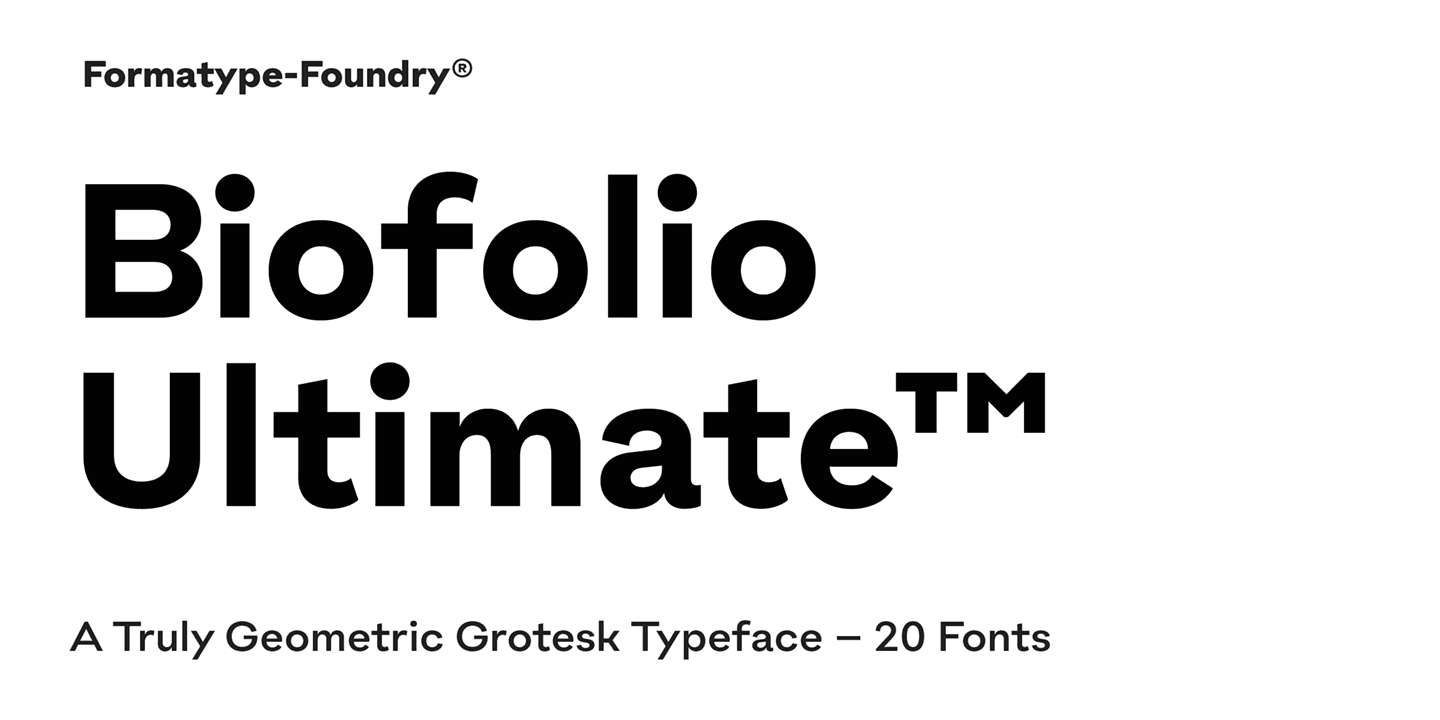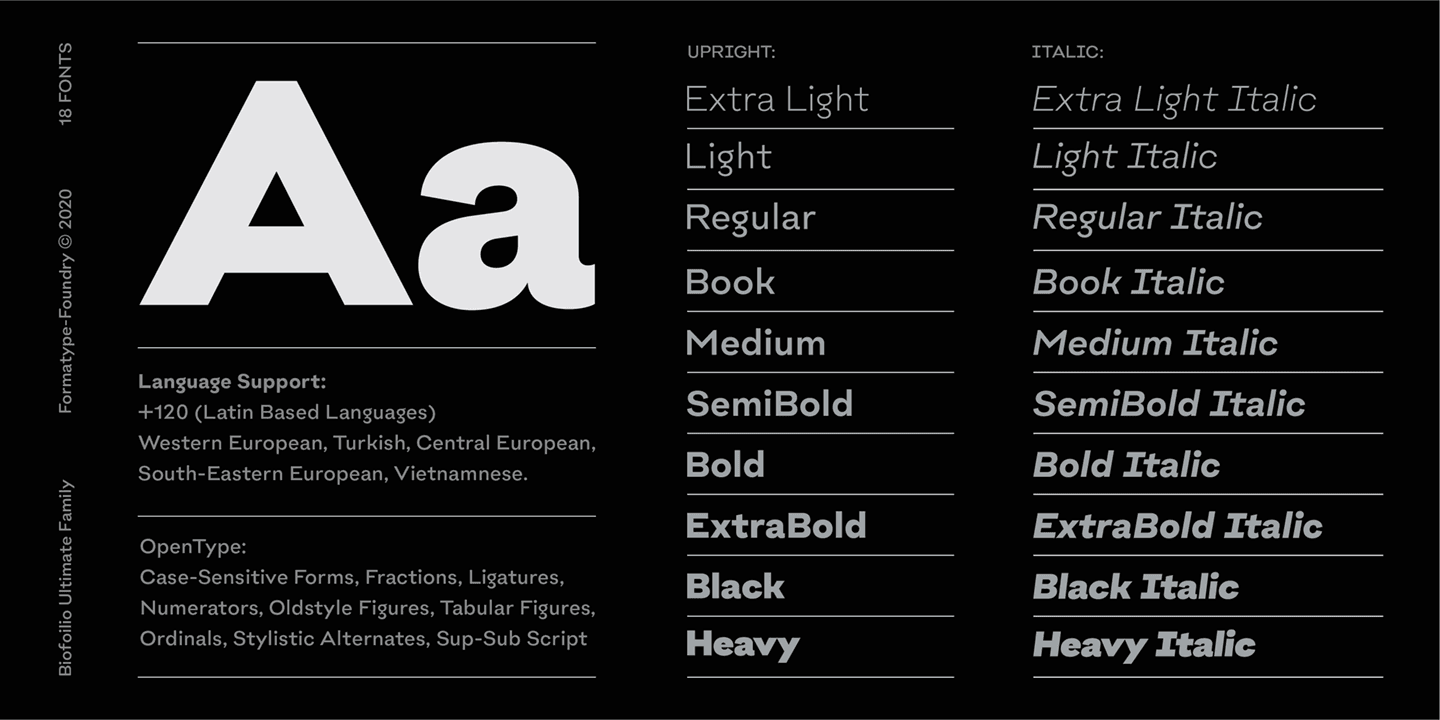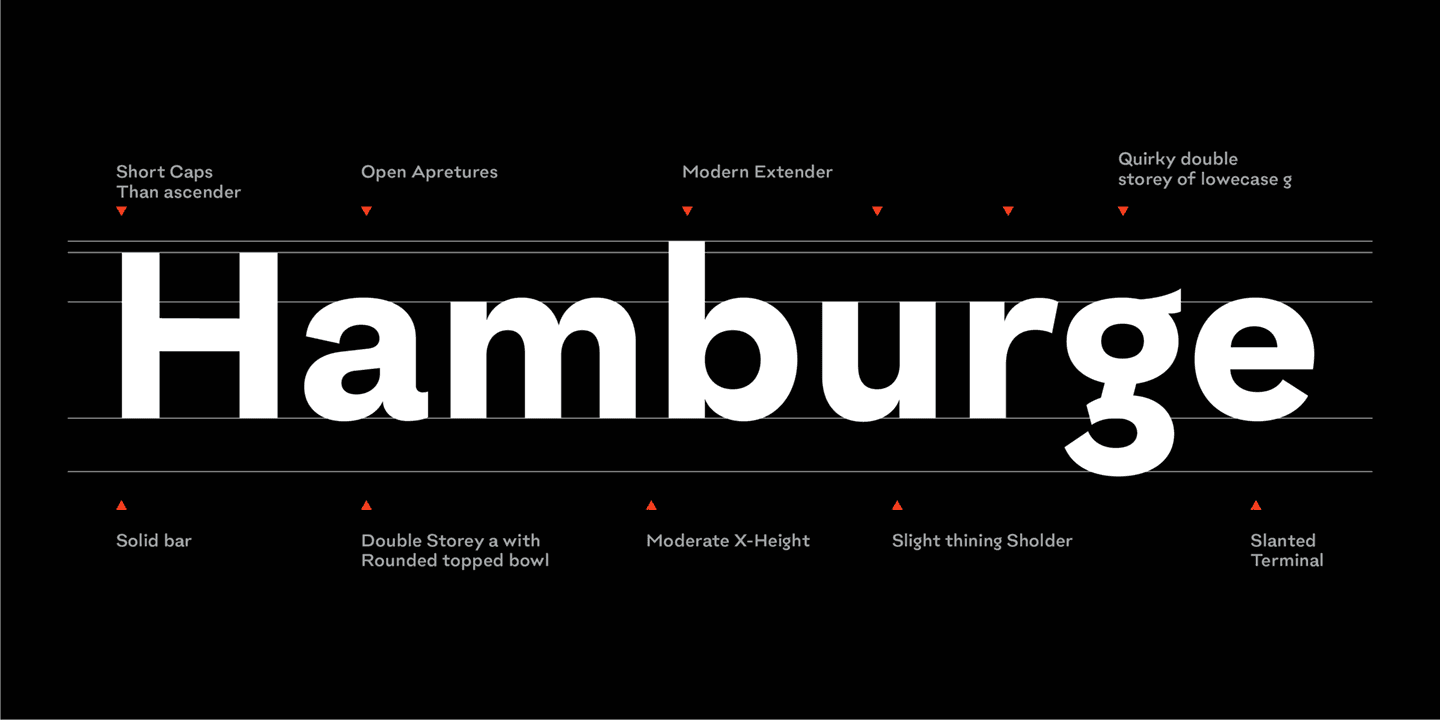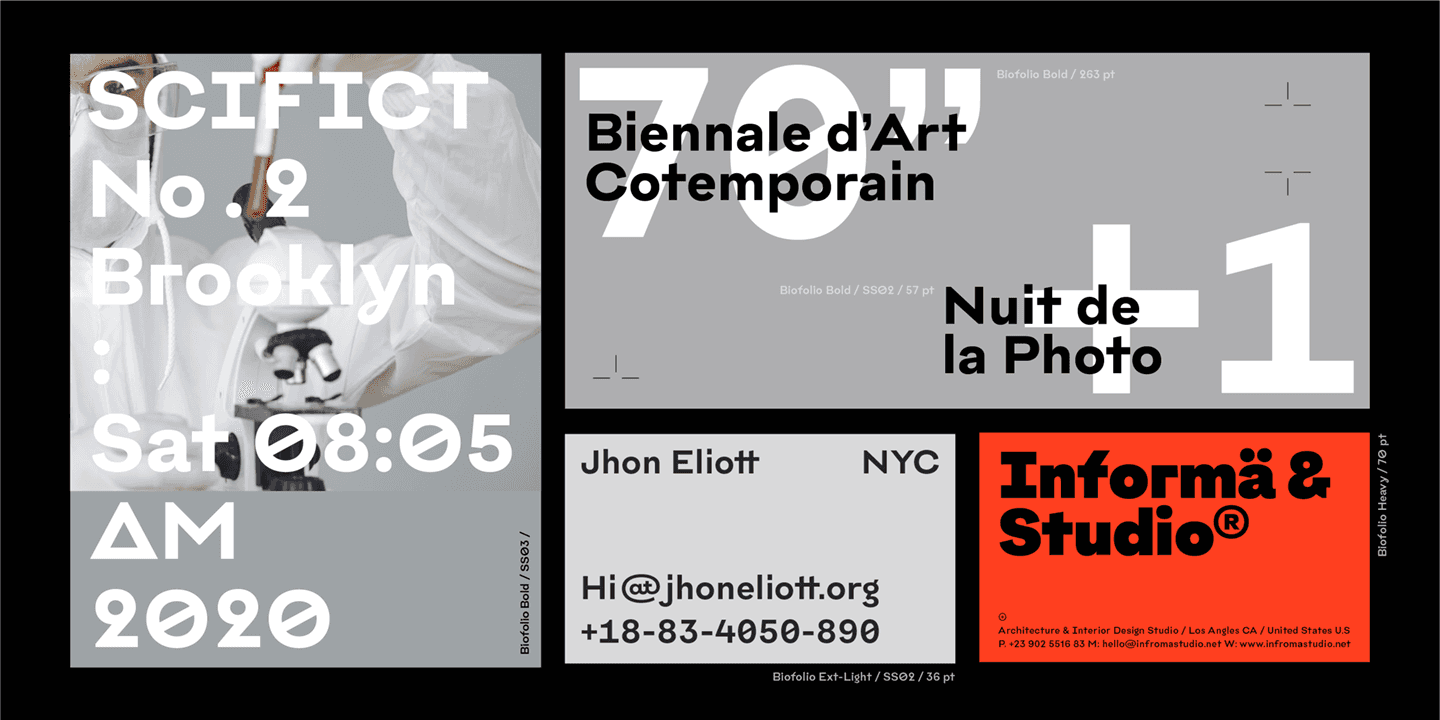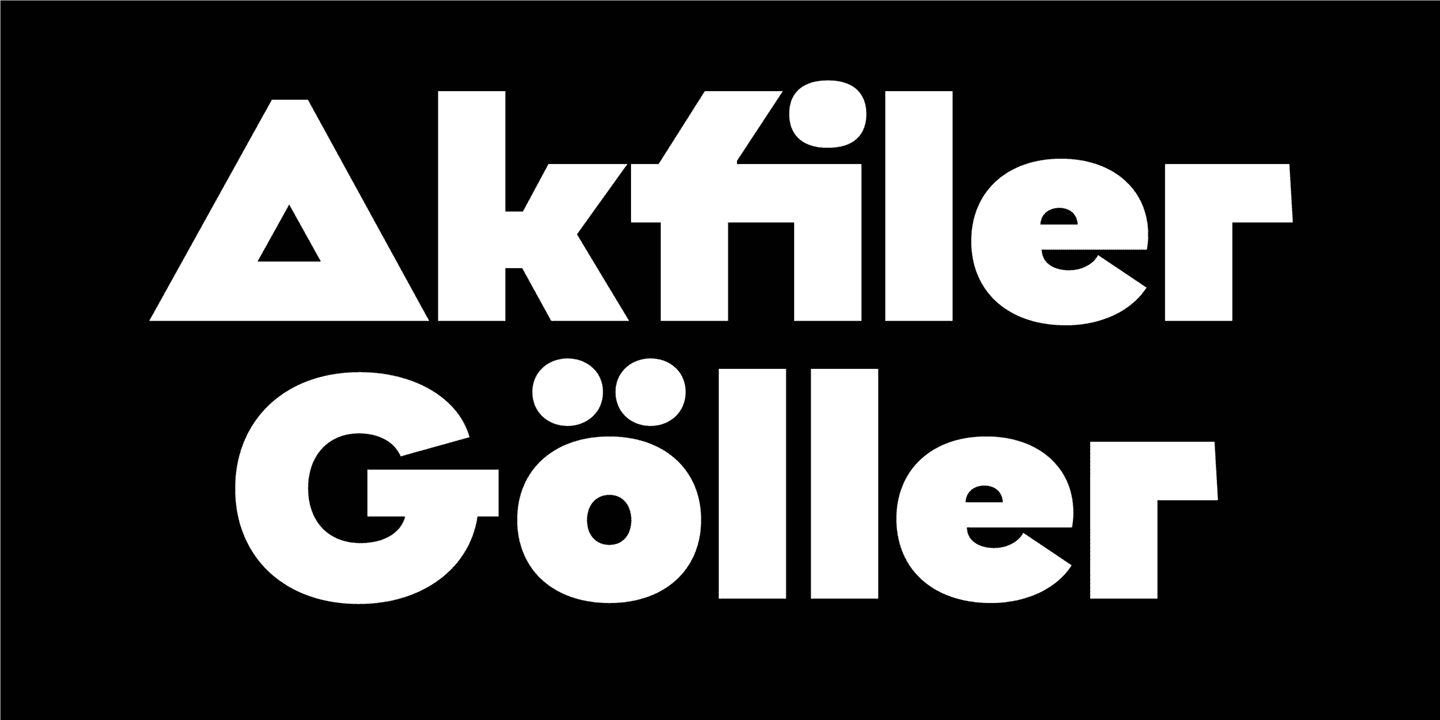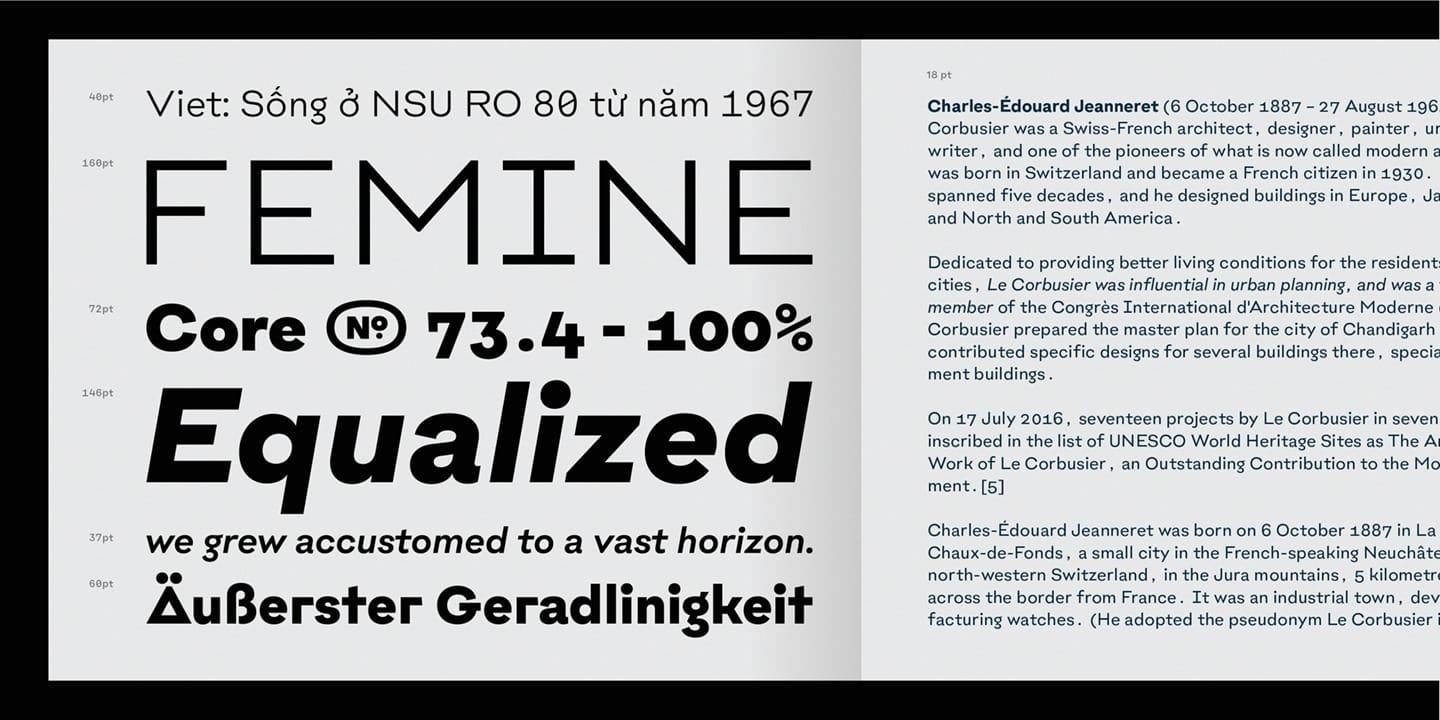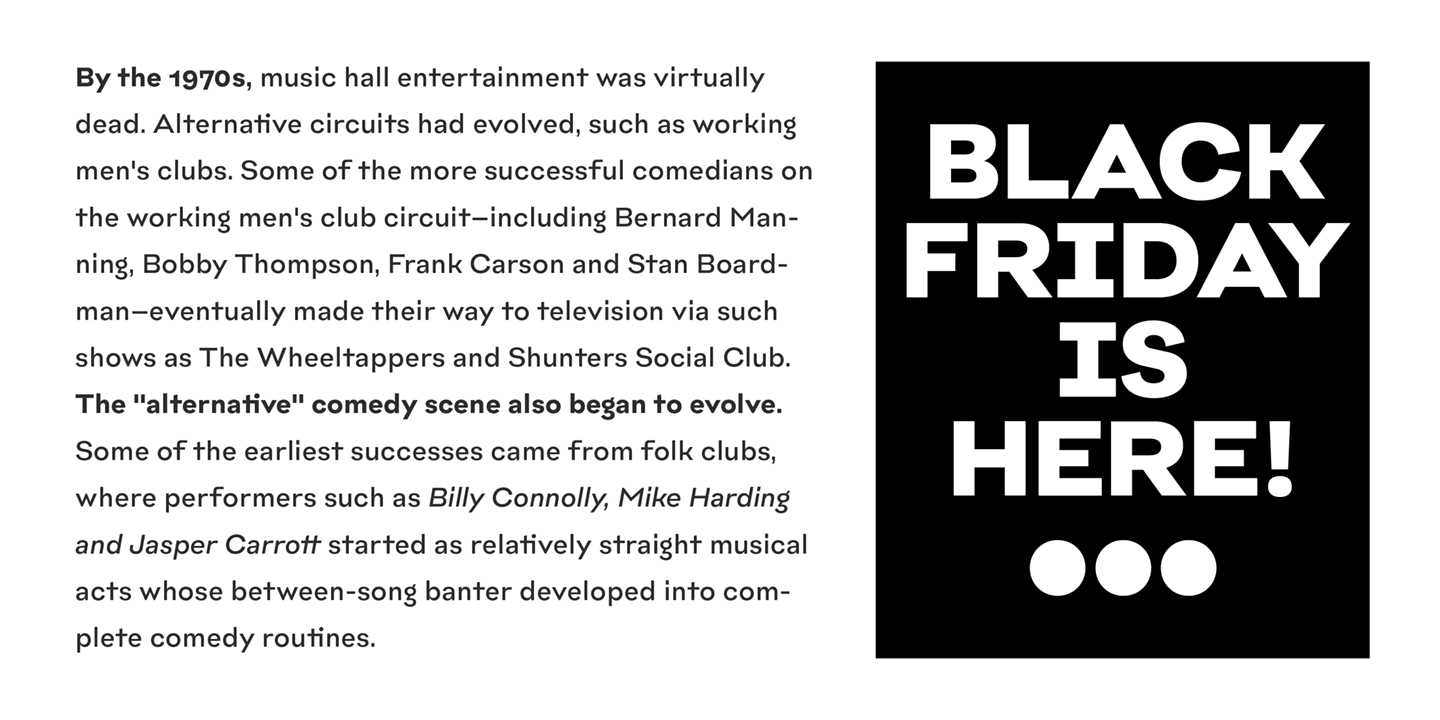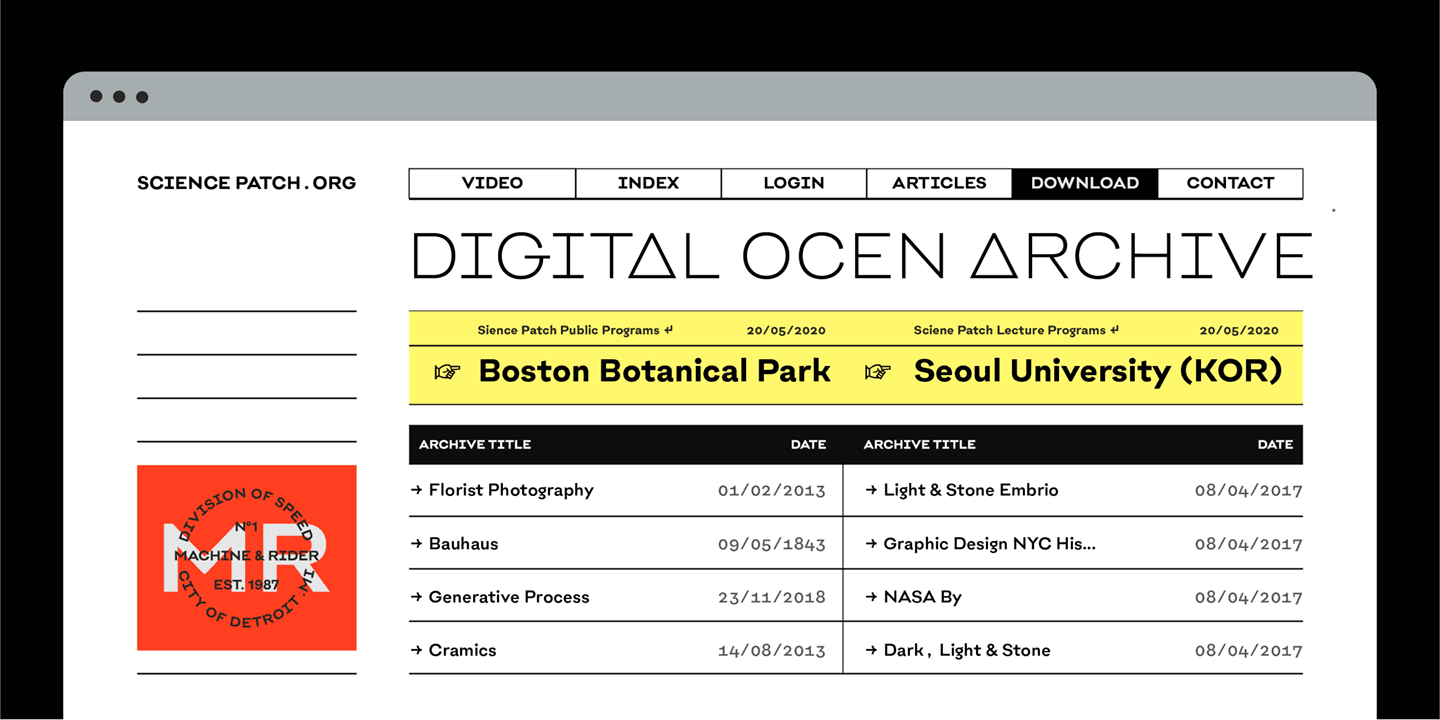
Biofolio Ultimate Font Family is a geometric Grotesk typeface and offers a style of simplicity, inspired by the simplicity of popular 20th century lettering.
The font is suitable for many different designs from long text to large display. In addition, the font has a modern style, so it is easy to use and apply to many different projects.
Comes with 10 italic matching weights – 20 fonts in all, Biofolio Ultimate supports around 150 different languages, designed with many OpenType features, such as powerful alternative styles, forms case sensitive, contextual and stylistic substitution. The standard numeral set includes symbols and tabular numbers, numerators and denominators, plus fractions.